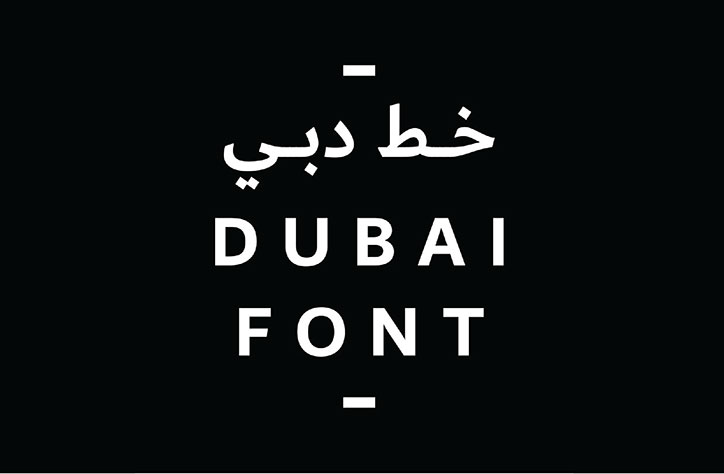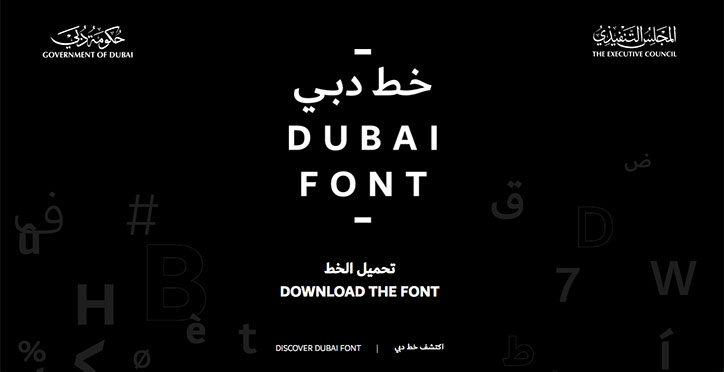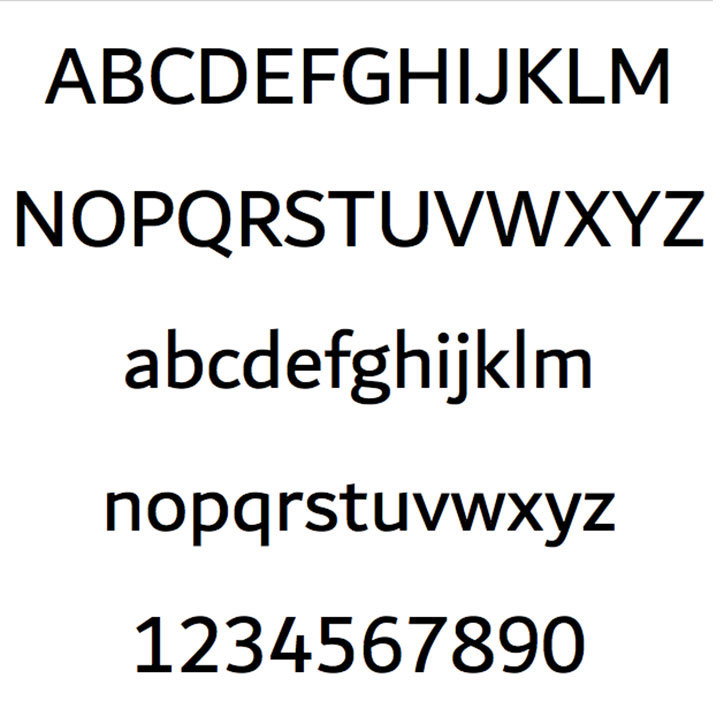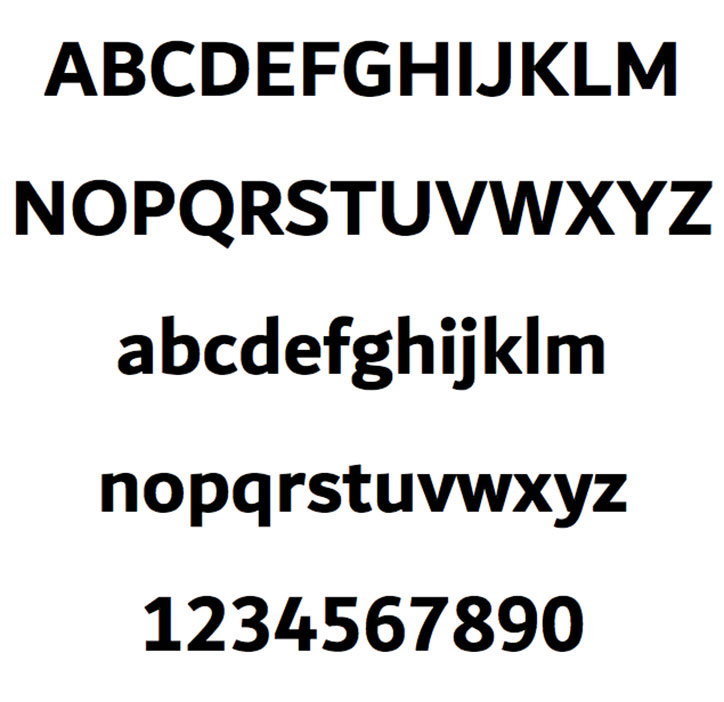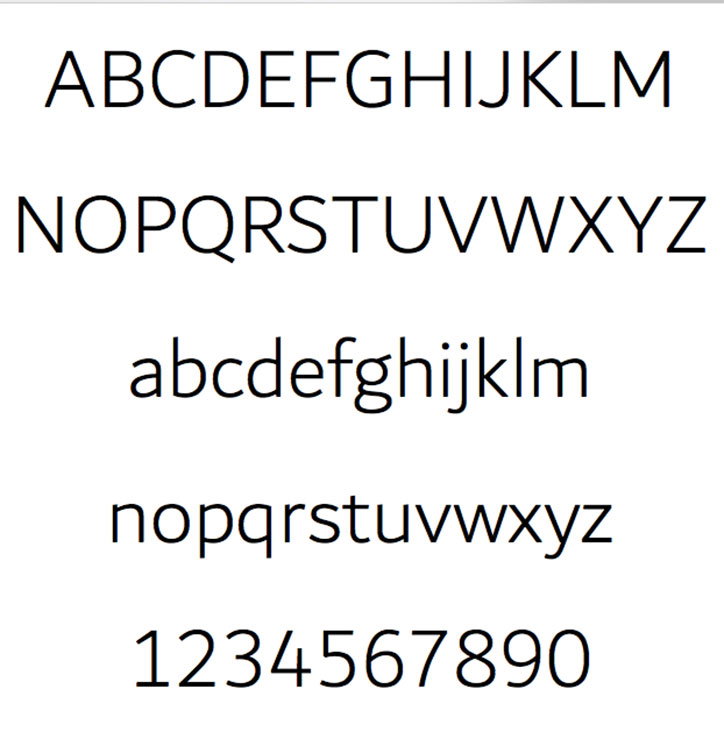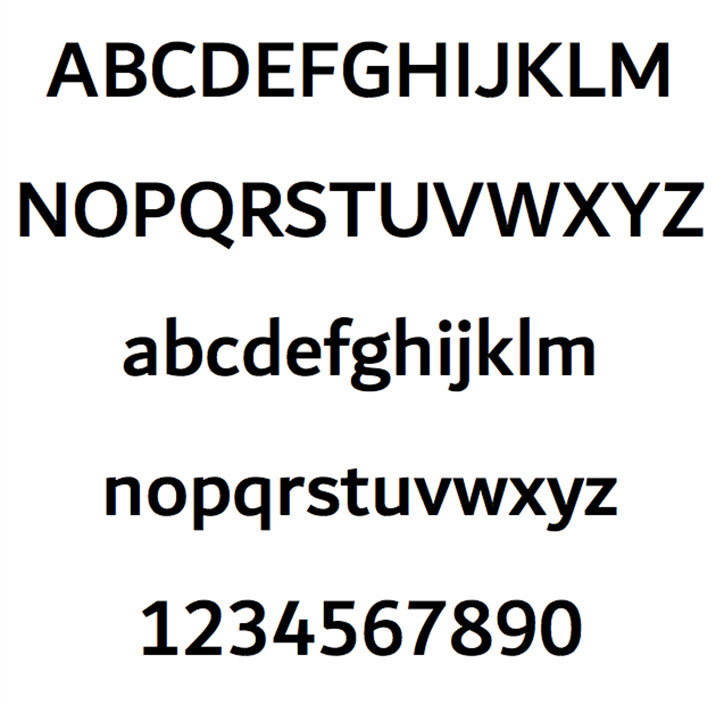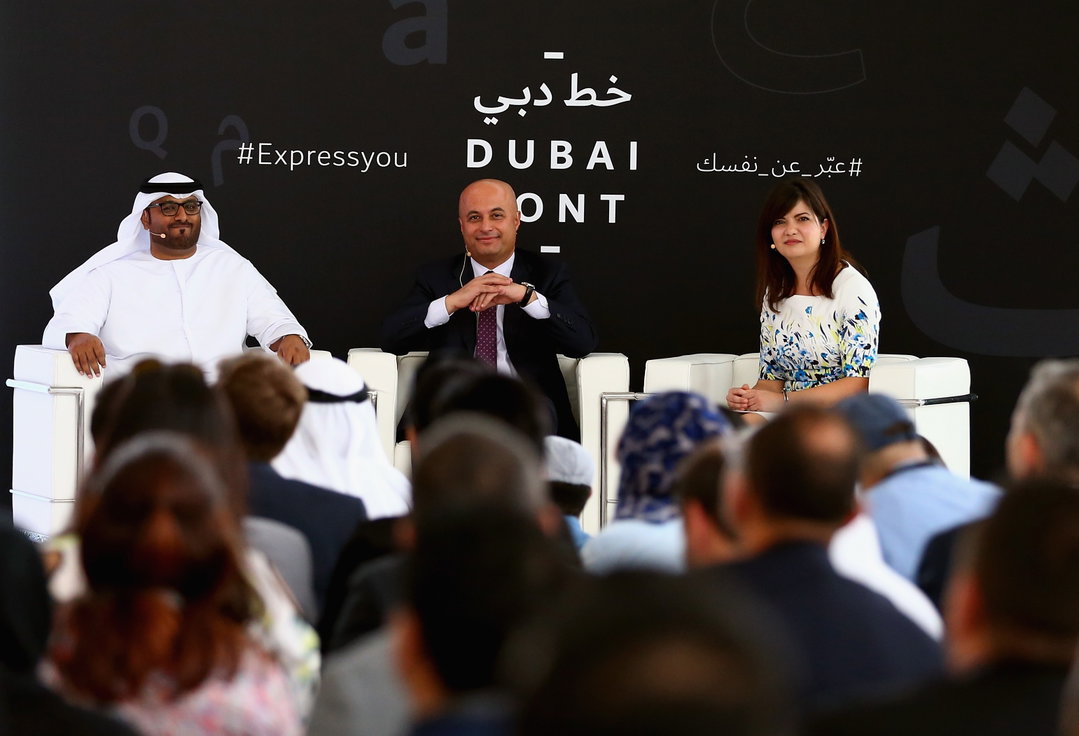
Microsoft launches typeface for Dubai, designed by Monotype’s Nadine Chahine
Microsoft and The Executive Council of Dubai has worked with Nadine Chahine, the Arabic type design specialist for Monotype, on a typeface for the city. It has been developed in Latin and Arabic script, to be extended to 21 further languages in future, to “create harmony” between the two scripts. It will be automatically added to Microsoft Office 365 and Office 2016 programmes in the latest update, and made available to download manually at DubaiFont.com, estimated to reach over 85 million people in 180 countries.
This is the first time Microsoft has created a font for a city. It was commissioned by the Crown Prince of Dubai, Sheikh Hamdan bin Mohammed bin Rashid Al Maktoum, who – according to UAE press – was personally involved in the typeface’s development, and has directed government institutions in Dubai to adopt the font. He says this decision is “a positive shift that will boost the Emirate’s competitiveness in smart technology. This should be a commitment from the Dubai Government to guarantee the dissemination and success of this initiative on a local and global level”.
Nadine lead a team of designers and engineers based at Monotype’s London office, which has been working on the face for over a year. The goal, Microsoft says, was to produce “a highly readable text font family” that worked “harmoniously” in both scripts. It has been released in four styles, Dubai Light, Dubai (regular), Dubai Medium and Dubai Bold, but not italics.
“The openness and harmony of the people in the UAE, the essence of Dubai and its vision to become the quintessential modern Arab city were our source of inspiration to design the Dubai Font,” Nadine commented.
Monotype/Microsoft/The Executive Council of Dubai: Dubai font
Monotype/Microsoft/The Executive Council of Dubai: Dubai Regular
Monotype/Microsoft/The Executive Council of Dubai: Dubai Bold
Monotype/Microsoft/The Executive Council of Dubai: Dubai Light
Monotype/Microsoft/The Executive Council of Dubai: Dubai Medium
Monotype/Microsoft/The Executive Council of Dubai: Dubai font launch